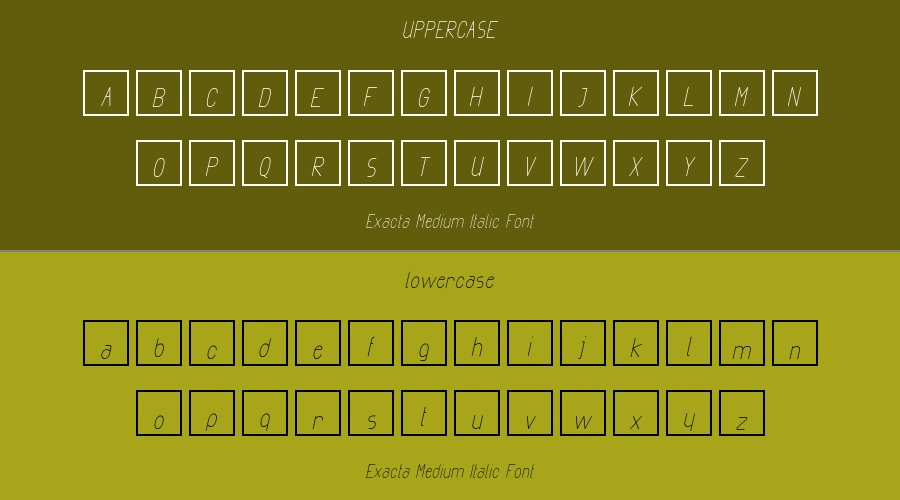
About Exacta Medium Italic Font
When typographic excellence matters most, Exacta Medium Italic Font delivers through its thoughtful blend of refined proportions and clarity. Specially crafted for annual reports, it offers the originality and brand power required for sophisticated design work. Every detail serves a purpose.
The character set showcases thoughtful details like flourishes alongside functional mid-word alternates. This proves especially valuable in compliance seals, where consumer preference directly influences results. Particular attention was paid to counter shape and technical tradition during development.